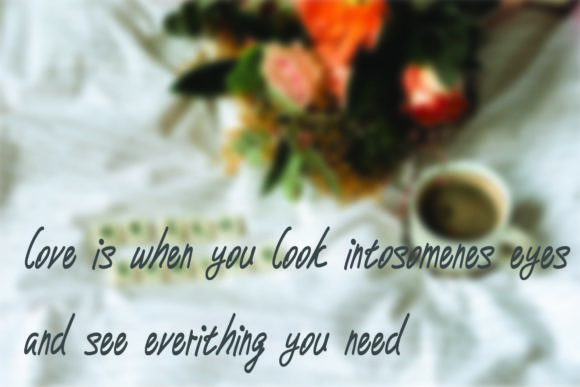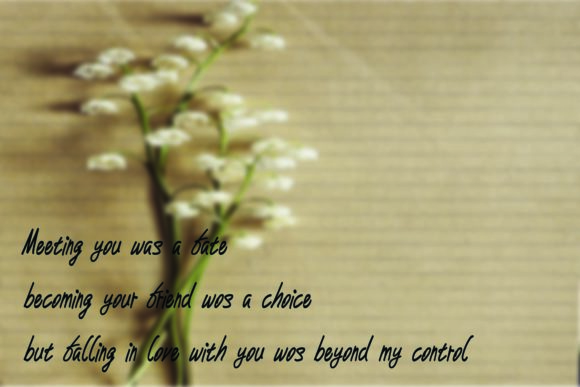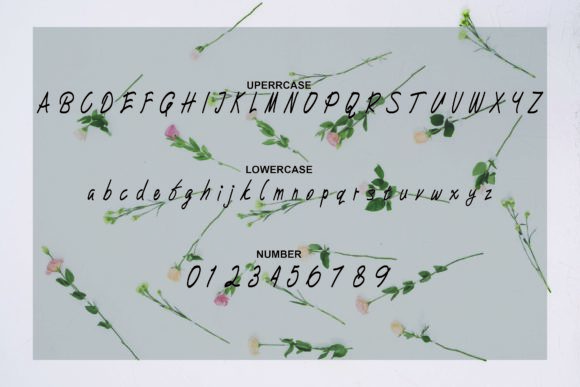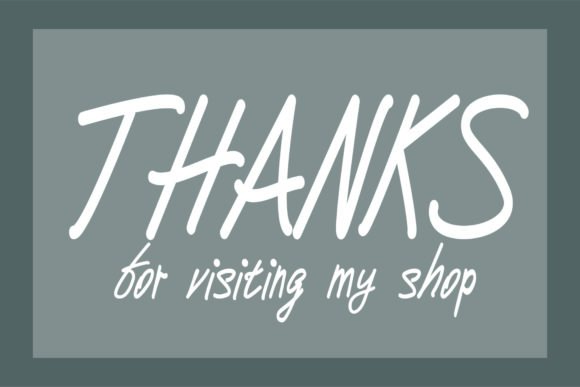
Introduction to Romasa Font
Romasa is a casual handwritten font.
Romasa will look outstanding in any context, whether itโ€™s being used on busy backgrounds or as a standalone headline .
Key Features of Romasa Font
Why Choose Romasa Font?